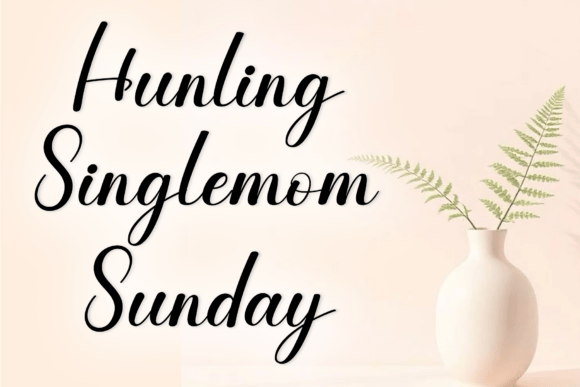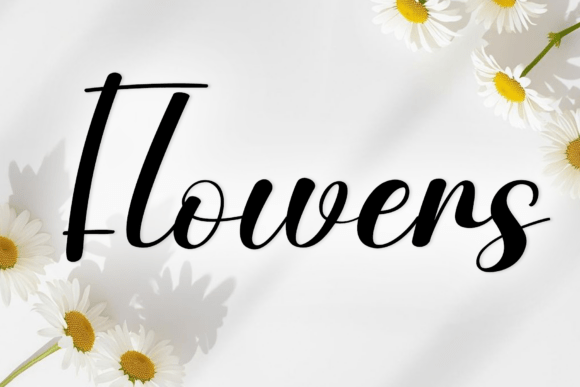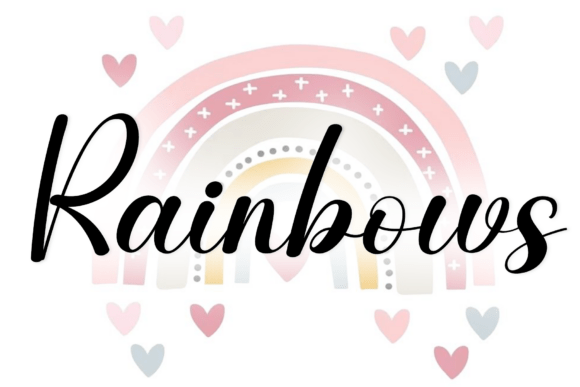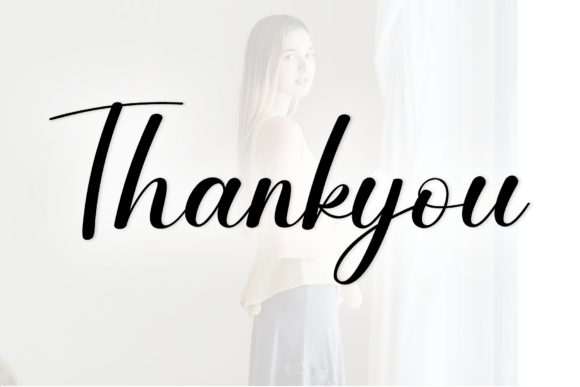
Discover the Charm of Amalia Humbling Font: Elevate Your Designs with Timeless Elegance
In the world of typography, few fonts manage to capture the essence of elegance and charm as effectively as the Amalia Humbling font. This lovely and timeless handwritten font has been making waves among designers and crafters alike, and for good reason. Its unique blend of classic sophistication and modern flair makes it the perfect choice for creating eye-catching logos, branding materials, and quotes that stand out from the crowd.
The Unique Touch of Amalia Humbling
One of the standout features of the Amalia Humbling font is its distinctive and beautiful touch. Every letter is carefully crafted to bring a sense of individuality and character to your designs. Unlike more uniform fonts, Amalia Humbling’s handwritten style injects a dose of personality into your work, making it more relatable and engaging to your audience. Whether you’re working on a logo, a brand identity, or a decorative quote, this font adds a layer of warmth and sophistication that’s hard to achieve with more generic typefaces.
For designers and crafters looking to elevate their projects, Amalia Humbling offers a versatile and stylish solution. Its applications are vast, ranging from:
- Logos and Branding: Create memorable and impactful logos that reflect the unique personality of your brand. Amalia Humbling’s elegant and timeless quality ensures that your logo will stand the test of time.
- Quotes and Posters: Add a touch of sophistication to your inspirational quotes, posters, and flyers. The font’s readability and aesthetic appeal make it perfect for large and small print projects alike.
- Stationery and Invitations: Elevate your stationery, invitations, and greeting cards with a personal touch. Amalia Humbling’s charm and elegance make any written communication feel special.
Why Choose Amalia Humbling?
With so many fonts available, what sets Amalia Humbling apart? Here are a few reasons why designers and crafters are falling in love with this beautiful font:
- Timeless Appeal: Unlike trendy fonts that may quickly go out of style, Amalia Humbling boasts a timeless quality that ensures your designs remain relevant for years to come.
- Versatility: This font can be used across a wide range of projects, from digital designs to print materials, offering flexibility and consistency in your branding and design work.
- Emotional Connection: The unique, handwritten nature of Amalia Humbling helps create an emotional connection with your audience, making your designs more impactful and memorable.
Tips for Using Amalia Humbling Effectively
To make the most of Amalia Humbling, consider the following tips:
- Pair with Complementary Fonts: For maximum impact, pair Amalia Humbling with fonts that complement its style. A clean sans-serif font can provide a nice contrast and enhance readability.
- Play with Sizes and Colors: Don’t be afraid to experiment with different sizes and colors to add depth and interest to your designs.
- Maintain Consistency: For branding purposes, use Amalia Humbling consistently across all your materials to build recognition and a cohesive brand image.
Amalia Humbling is more than just a font; it’s a design element that can transform your projects with its timeless elegance and charming personality. Whether you’re a designer looking to elevate your branding, a crafter seeking to add a personal touch to your creations, or simply someone who appreciates beautiful typography, Amalia Humbling is a fantastic choice. Its versatility, emotional appeal, and unique touch make it an invaluable addition to your design toolkit. So why wait? Explore the possibilities of Amalia Humbling today and discover how it can bring your designs to life!